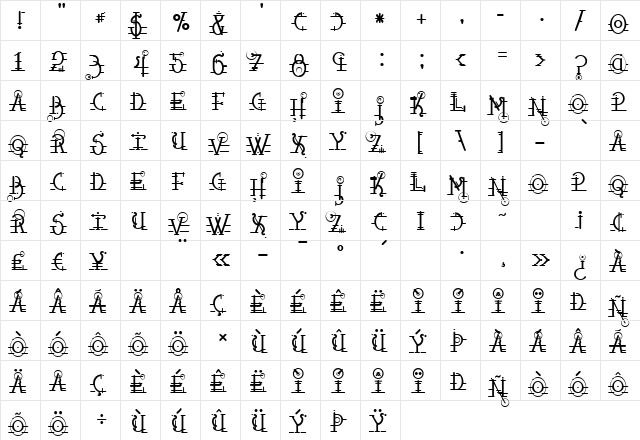
Snippletweak Regular Font Preview
Snippletweak Regular
Snippletweak Regular Font Details
Design Context for Snippletweak Typeface
Snippletweak is a composed and adaptable typeface that performs quietly and consistently across a wide range of design contexts.